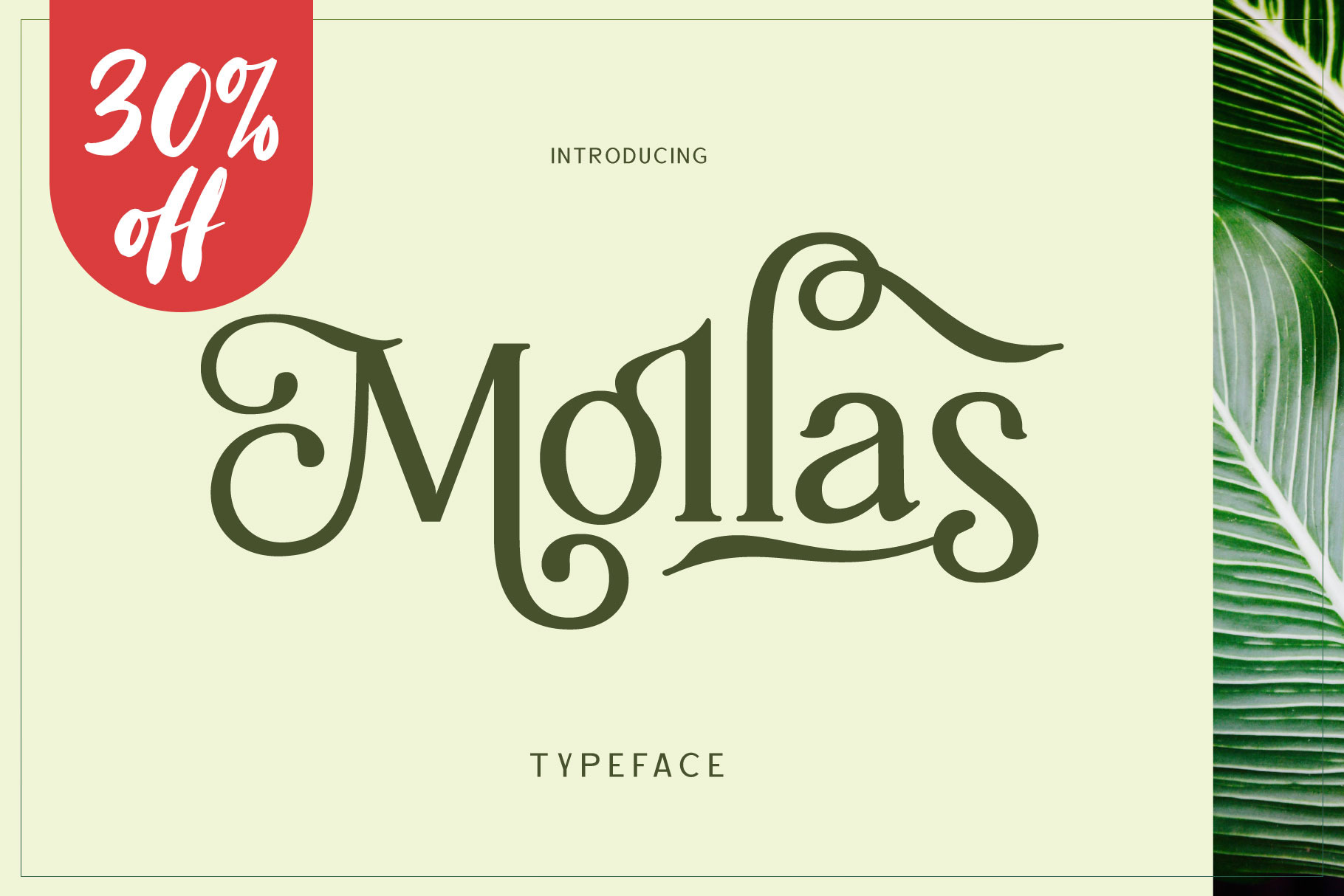
Mollas Typeface
Introducing Mollas Typeface
Mollas typeface has 14 total families from Thin to Heavy, besides that there are many amazing and unique alternative glyphs for your design creation. Its use is very easy and simple. It can be run in design or non-design programs because the Mollas typeface has PUA unicode support. Besides that, the Mollas typeface also has multilingual support.